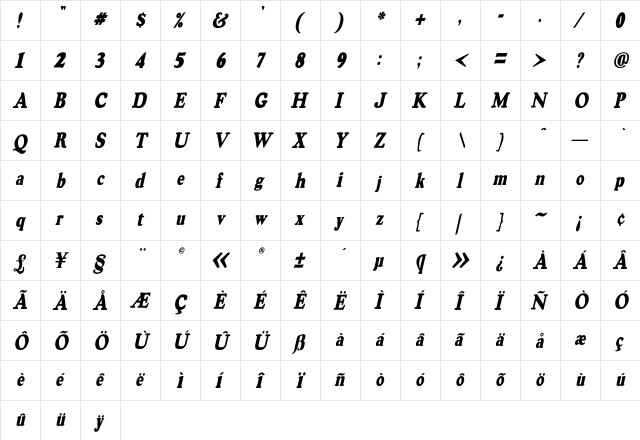
OSWALDblack Th Italic Italic
Design Context for OSWALDblack Th Italic Typeface
OSWALDblack Th Italic offers clean, dependable letterforms without strong stylistic allegiance, making it a practical choice for designers who need flexibility. The slanted form adds forward momentum and visual energy.